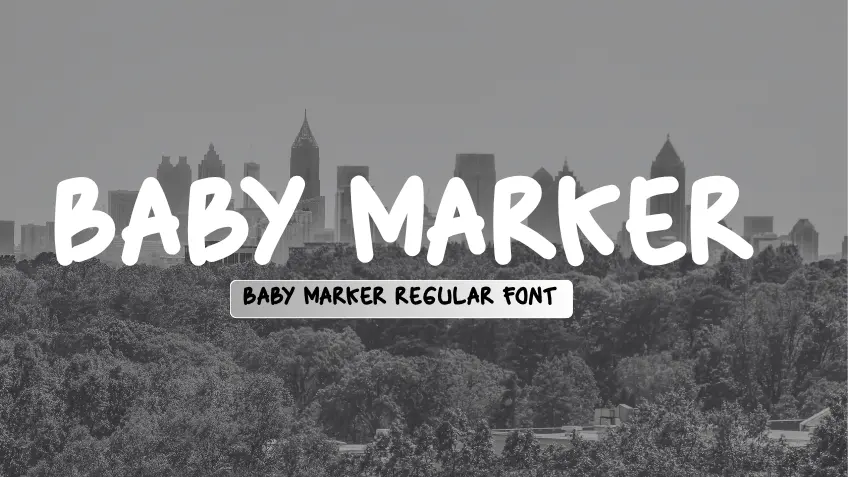
The font Baby Marker Regular, designed by arukidzfl, falls under the Display, Handwritten category & Baby Marker font family. Its smooth, flowing letterforms make it a versatile choice for projects that require both elegance and readability. Baby Marker is particularly well-suited for Poster, Birthday Invitation, Baby Shower, Children's Branding, Crafting and T-shirt. With its balance of simplicity and decorative appeal, this font brings a polished touch to both personal and professional designs.